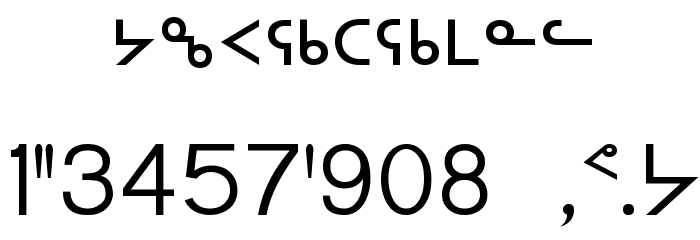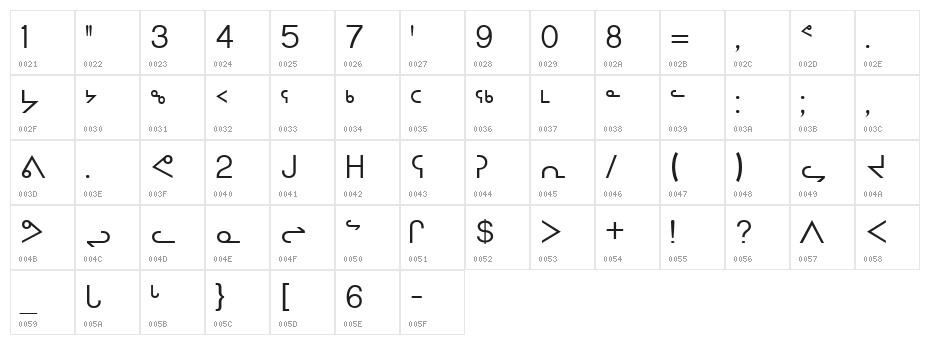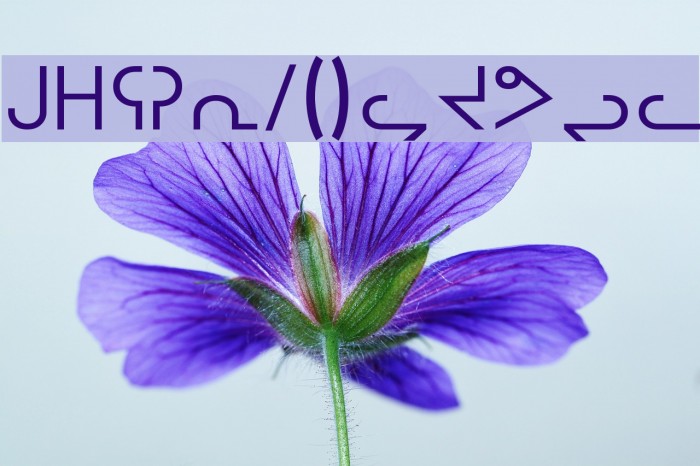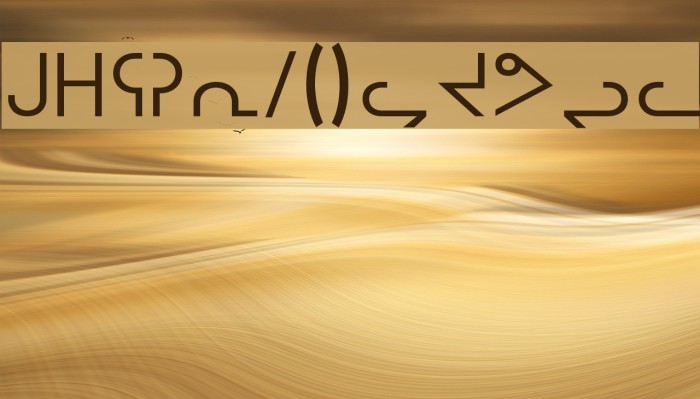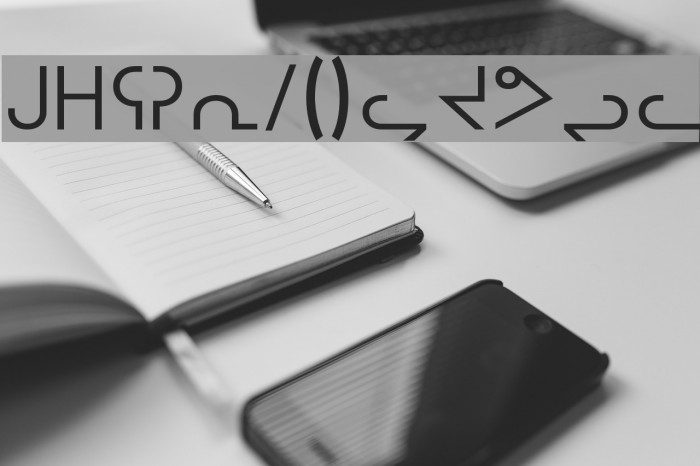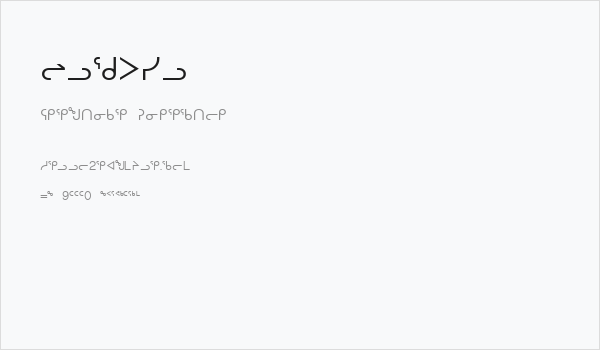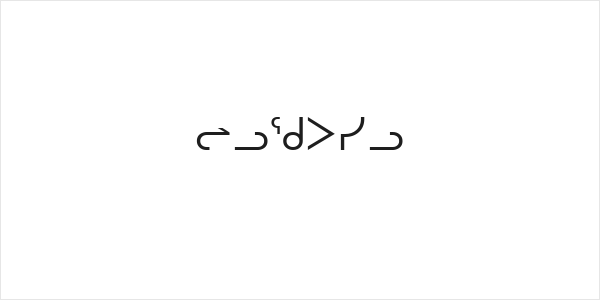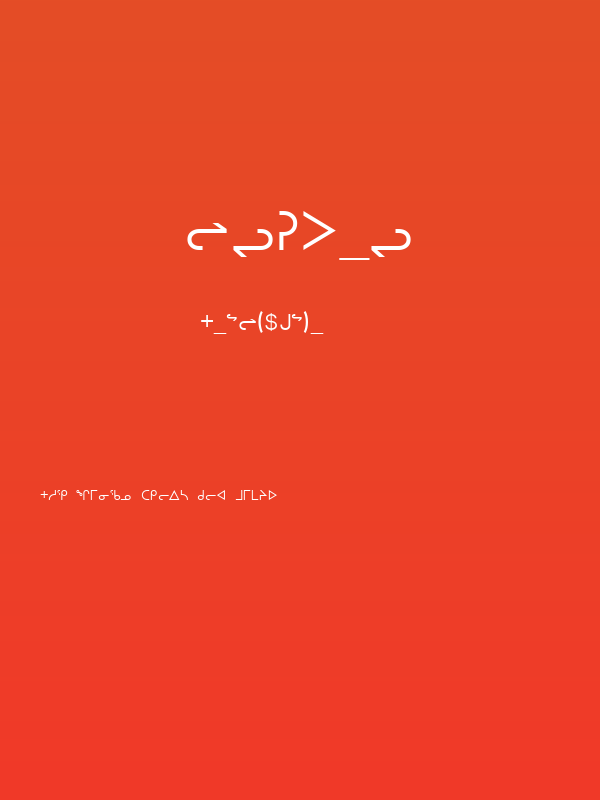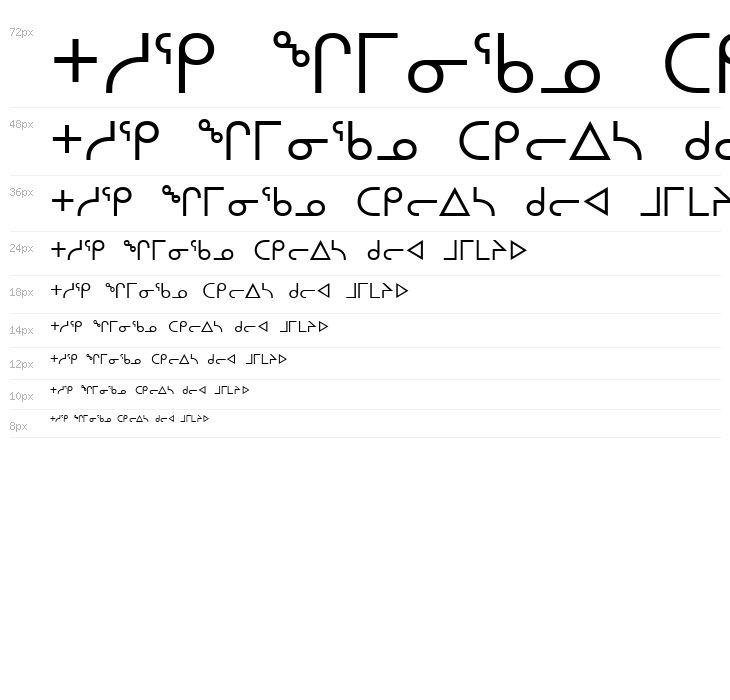
OldSyl Font
OldSyl Description
This font features a unique and abstract design, characterized by its geometric and unconventional shapes. The characters are composed of smooth curves and sharp angles, creating a futuristic and artistic appearance. The font lacks traditional letterforms, opting instead for a stylized and symbolic representation of characters. This design choice gives it a distinct and modern aesthetic, suitable for creative and avant-garde projects. The font's abstract nature makes it stand out, offering a fresh take on typographic design.
| Use Case | Logos, Art installations, Creative branding |
| Proposed Projects | Ideal for creative projects, modern art displays, futuristic branding, and experimental design work. |